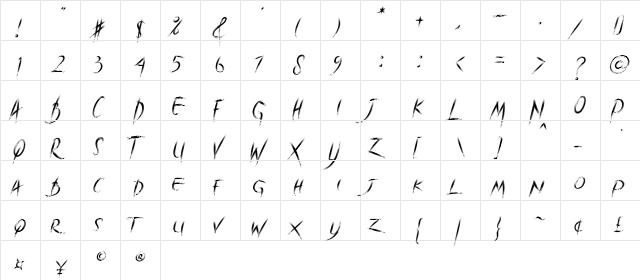
Brave Heart Regular Font Preview
Brave Heart Regular
Brave Heart Regular Font Details
Design Context for Brave Heart Typeface
Brave Heart is a composed and adaptable typeface that performs quietly and consistently across a wide range of design contexts.